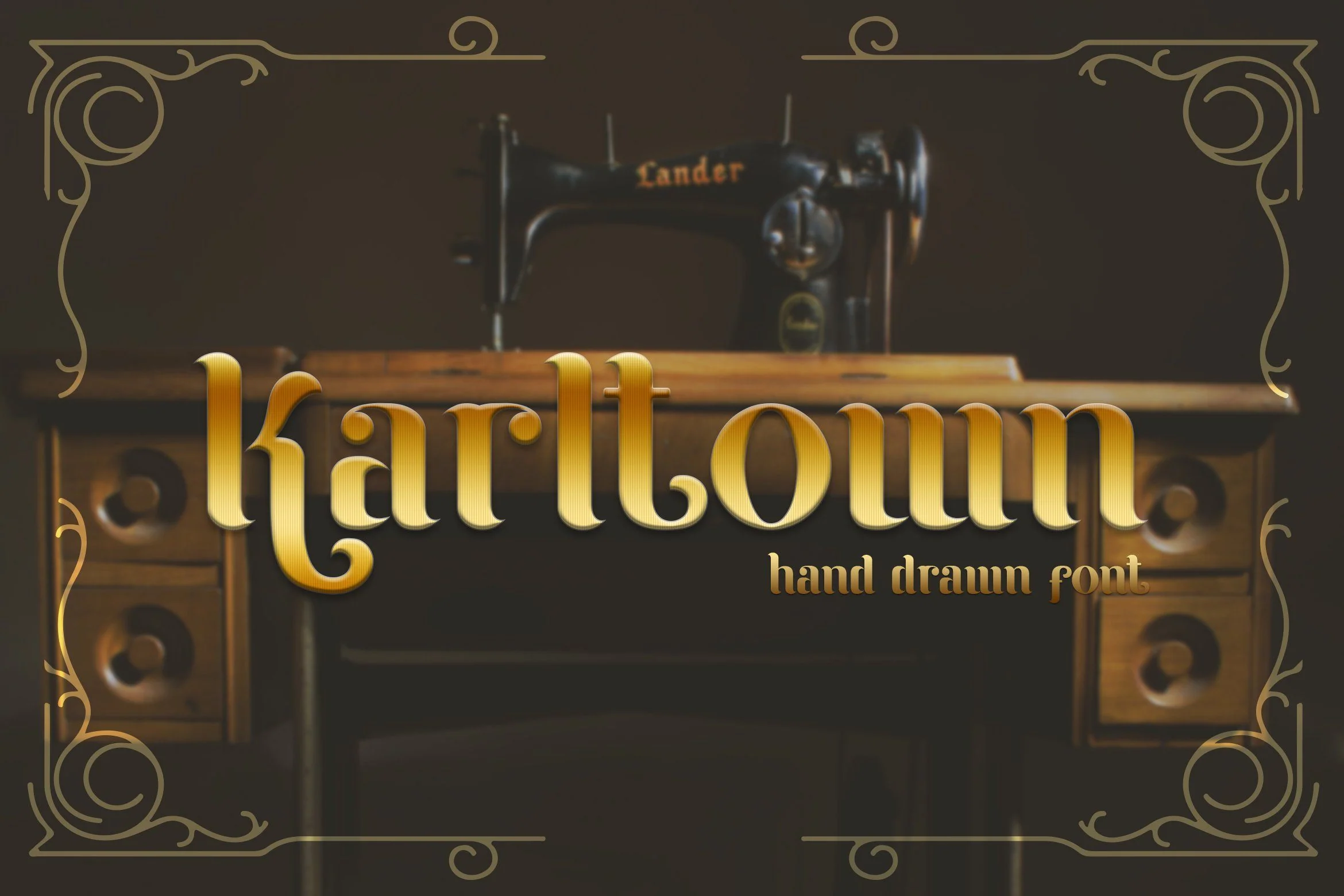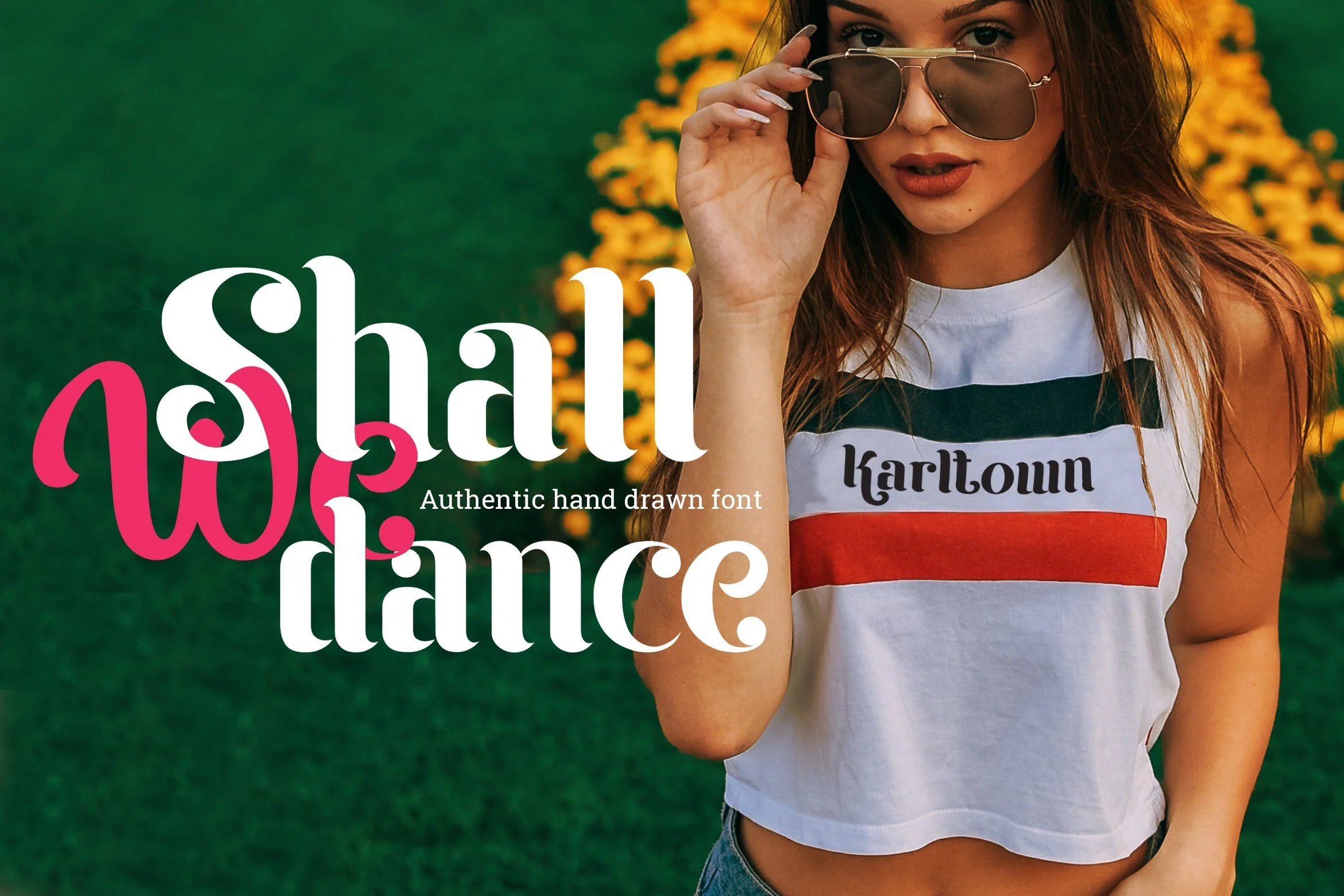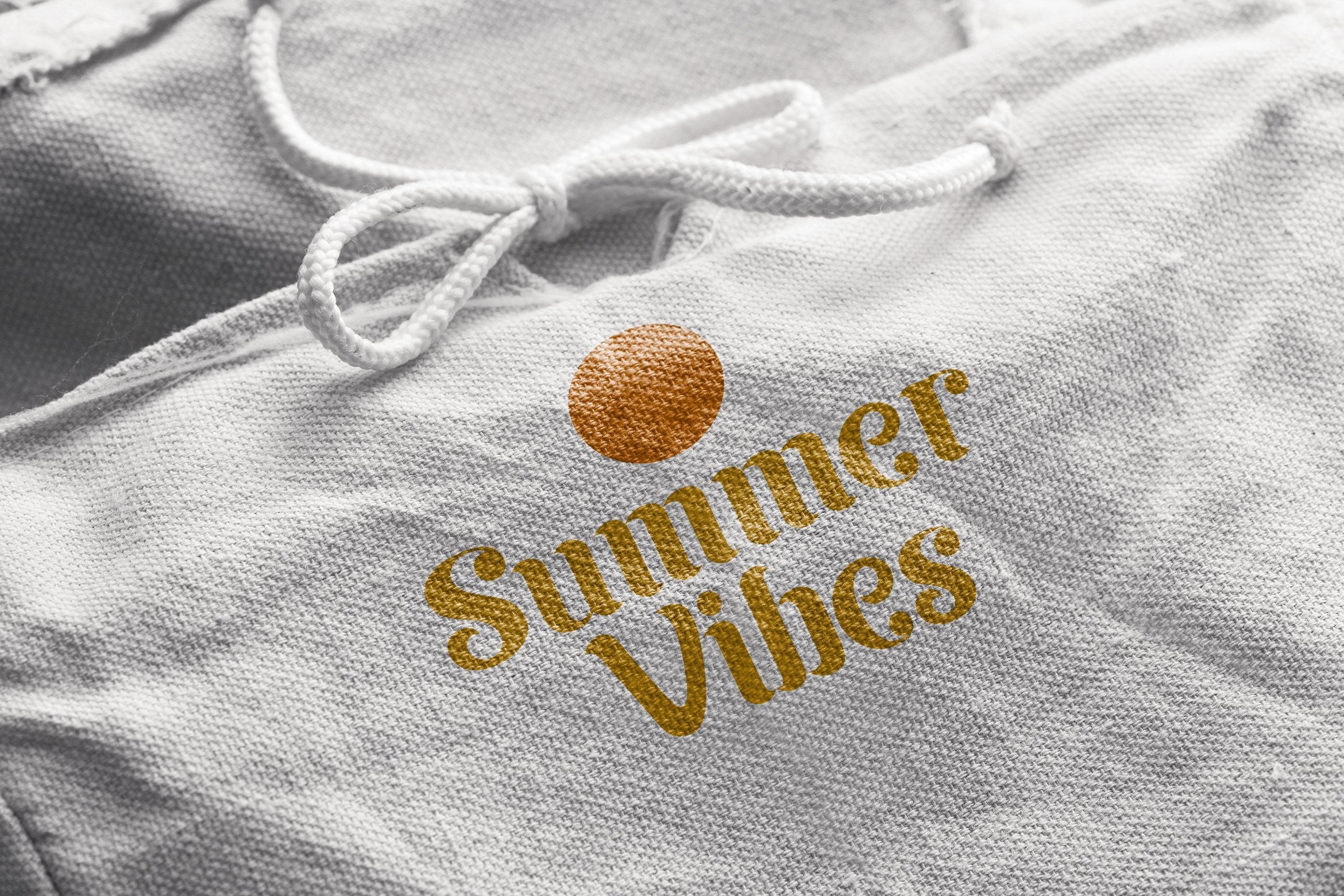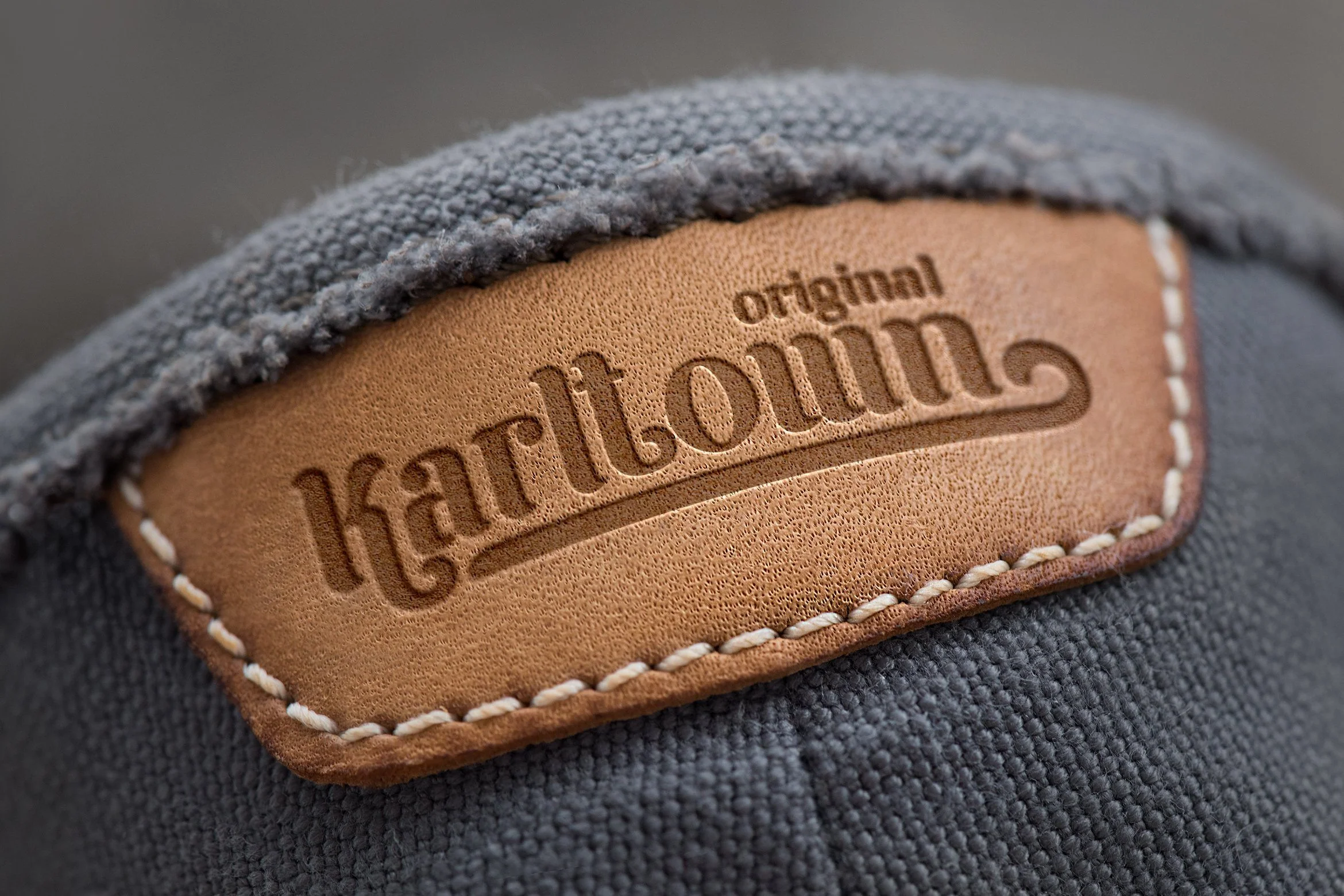
Karltown - Handdrawn Font
Introducing Karltown - Handdrawn Font
Karltown is a handdrawn font that we made with excellent taste. Â
We combine ethnic and cultural elements in each of the glyphs. Â
This font is suitable for those of you who like traditional arts and culture, Â
besides this font is also suitable for those of you who have a shoe, fabric, clothing, fashion, and also jeans business.
Karltown is perfect for your brand!
- Alternate Style
- Uppercase & Lowercase letters